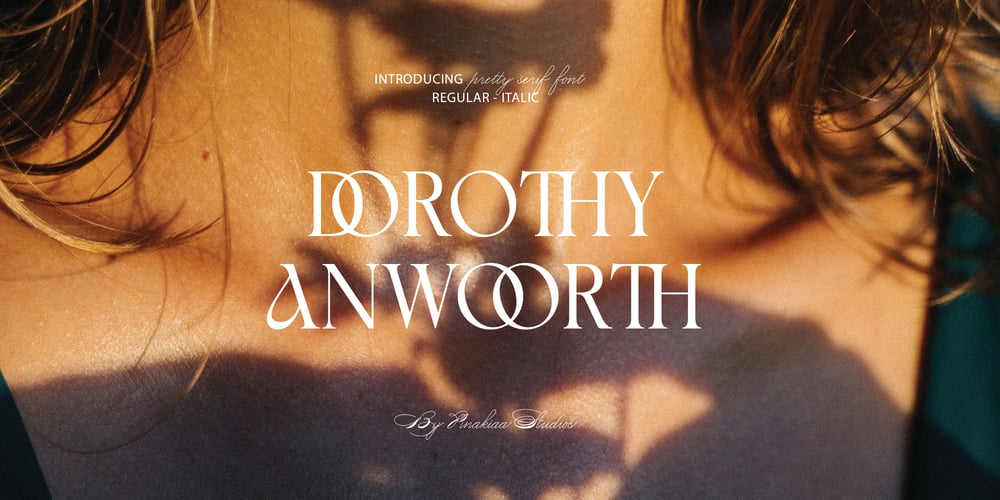
Dorothy Anworth
Dorothy Anworth font
Dorothy Anworth Font Family was designed by Fina Fadhila Rosida, Fina Fadhila and published by Pinakiaa Studios. Dorothy Anworth contains 2 styles and family package options. Introducing Dorothy Anworth – Elegant Serif Elegant serif combining classic design with a beautiful touch. Characterized by its clean, elegant lines. This font is perfect for high-end branding, editorial designs, and luxury invitations. Each letter shape is carefully crafted to ensure legibility while exuding a refined and classy feel. Whether used in print or digital format, Elegant Serif adds a touch of sophistication and professionalism to any project.